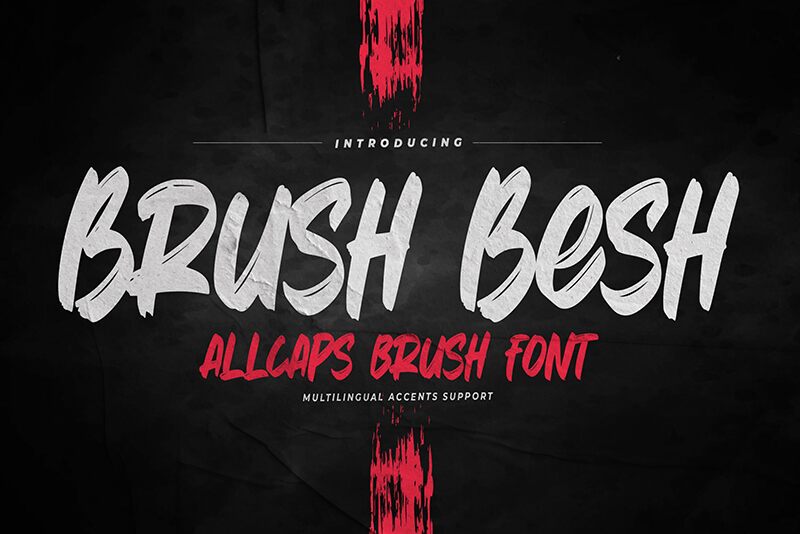
BrushBesh
Brush Besh, a masterful creation by Gassstype, exudes a captivating blend of raw elegance and effortless artistry. This boldly expressive brush-style font commands attention with its dynamic strokes, evoking a sense of energy and movement. The condensed width adds a touch of visual intrigue, lending a distinctive character that seamlessly adapts to a wide range of design applications.
Brush Besh's versatility shines through, making it a versatile choice for headings, logos, and branding materials. Its distinctive personality lends itself well to editorial designs, packaging, and even product labeling, where a touch of handcrafted flair can elevate the overall aesthetic. Whether you're crafting a modern and impactful title or curating a visually striking visual identity, Brush Besh's captivating presence is sure to leave a lasting impression.